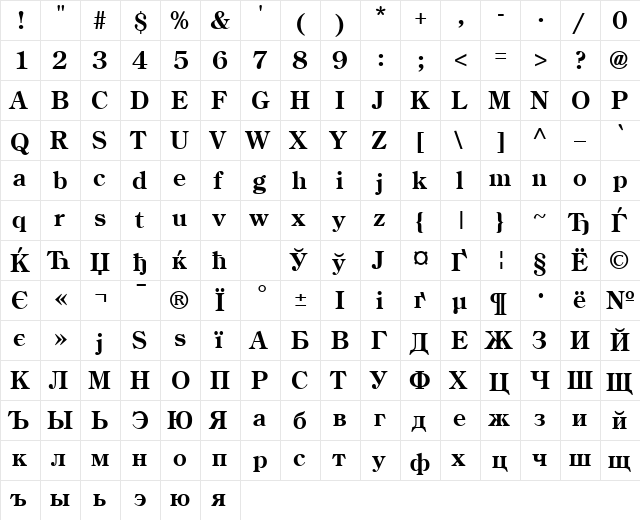
AGCenturion Bold
Design Context for AGCenturion Typeface
AGCenturion takes a measured approach to typography — its balanced proportions and neutral character make it a reliable workhorse for both digital and print work. Its bold stroke weight gives it real presence on the page.